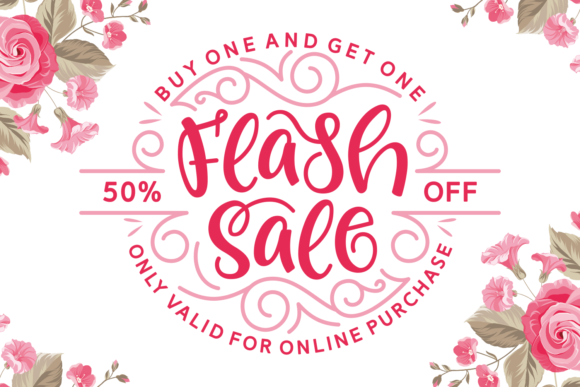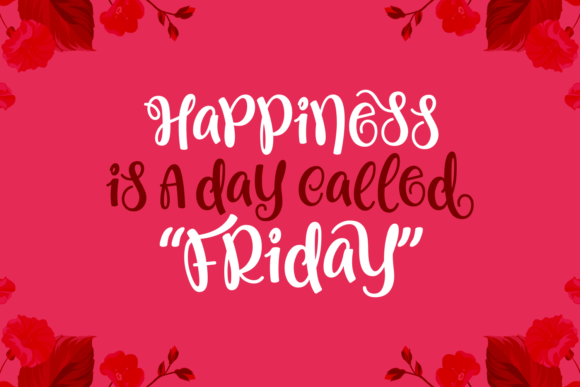
Introducing Black Friday Font: The Perfect Addition to Your Design Arsenal
Are you a designer or crafter looking for a unique and eye-catching font to elevate your projects? Look no further than the Black Friday Font, exclusively available for Creative Fabrica subscribers. This stunning, cutesy handwritten font is sure to add a touch of personality to your designs, and we’re excited to dive into its features and benefits.
What is Black Friday Font?
Black Friday Font is a one-of-a-kind, handwritten font that boasts a charming and playful aesthetic. Its distinctive style makes it perfect for a wide range of design projects, from crafting and scrapbooking to branding and advertising. Whether you’re creating invitations, signs, or promotional materials, this font is sure to make your work stand out.
Why Choose Black Friday Font?
So, what sets Black Friday Font apart from other fonts? Here are just a few reasons why designers and crafters love this font:
- Unique Style: The Black Friday Font boasts a distinctive, handwritten style that’s sure to add a touch of personality to your designs.
- Versatility: This font is perfect for a wide range of design projects, from crafting and scrapbooking to branding and advertising.
Tips for Using Black Friday Font
Now that you’ve got your hands on the Black Friday Font, here are some tips for getting the most out of this amazing resource:
- Pair it with Other Fonts: Experiment with pairing the Black Friday Font with other fonts to create unique and eye-catching combinations.
- Use it for Headings and Titles: The Black Friday Font is perfect for headings and titles, adding a touch of personality to your designs.
- Experiment with Colors and Textures: Don’t be afraid to experiment with different colors and textures to add depth and interest to your designs.
In conclusion, the Black Friday Font is an amazing addition to any design arsenal. With its unique style, versatility, and ease of use, this font is sure to elevate your designs and help you stand out from the crowd. As a Creative Fabrica subscriber, you’ll have exclusive access to this font, as well as a wealth of other creative resources to help you take your designs to the next level. Be sure to check out the CF Class: Customize Crafts with JDC Vinyl to learn how to make the most of this incredible font.